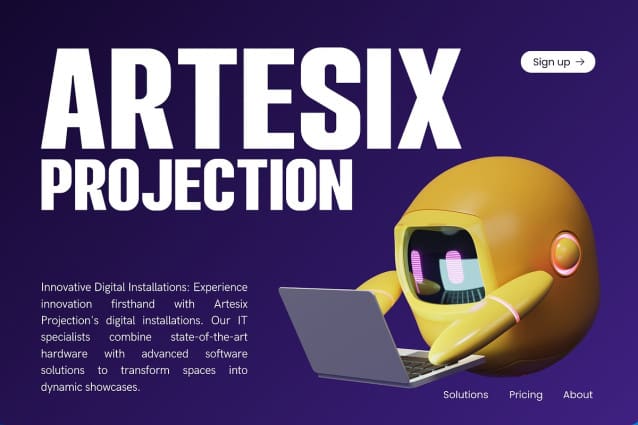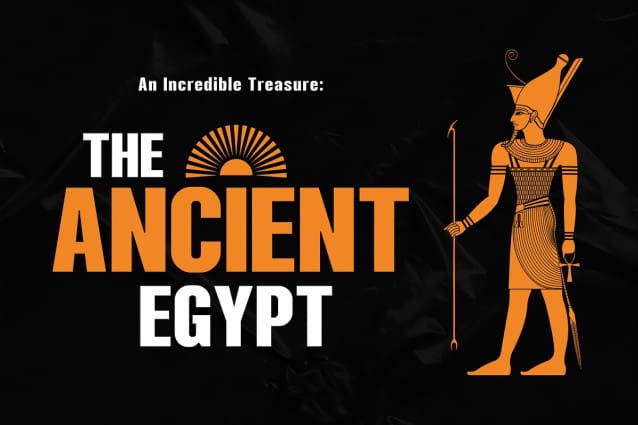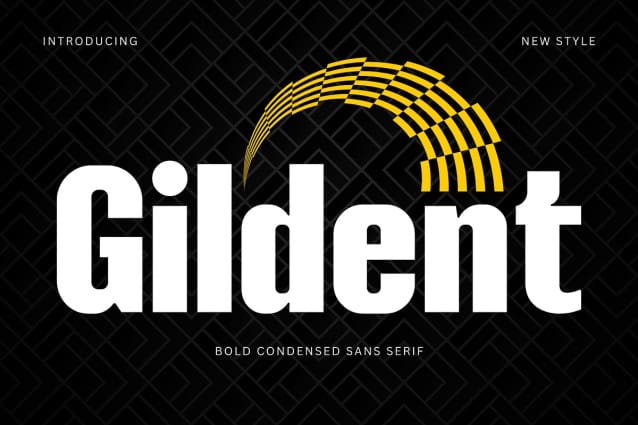
Gildent Font
Gildent Font, a bold condensed sans serif font that commands attention with its striking presence. With its clean lines and compact form, this font exudes confidence and modernity. Perfect for making bold statements in headlines, posters, or branding materials. “Gildent” adds a touch of sleekness and sophistication to your designs, ensuring they stand out with a powerful typographic impact.